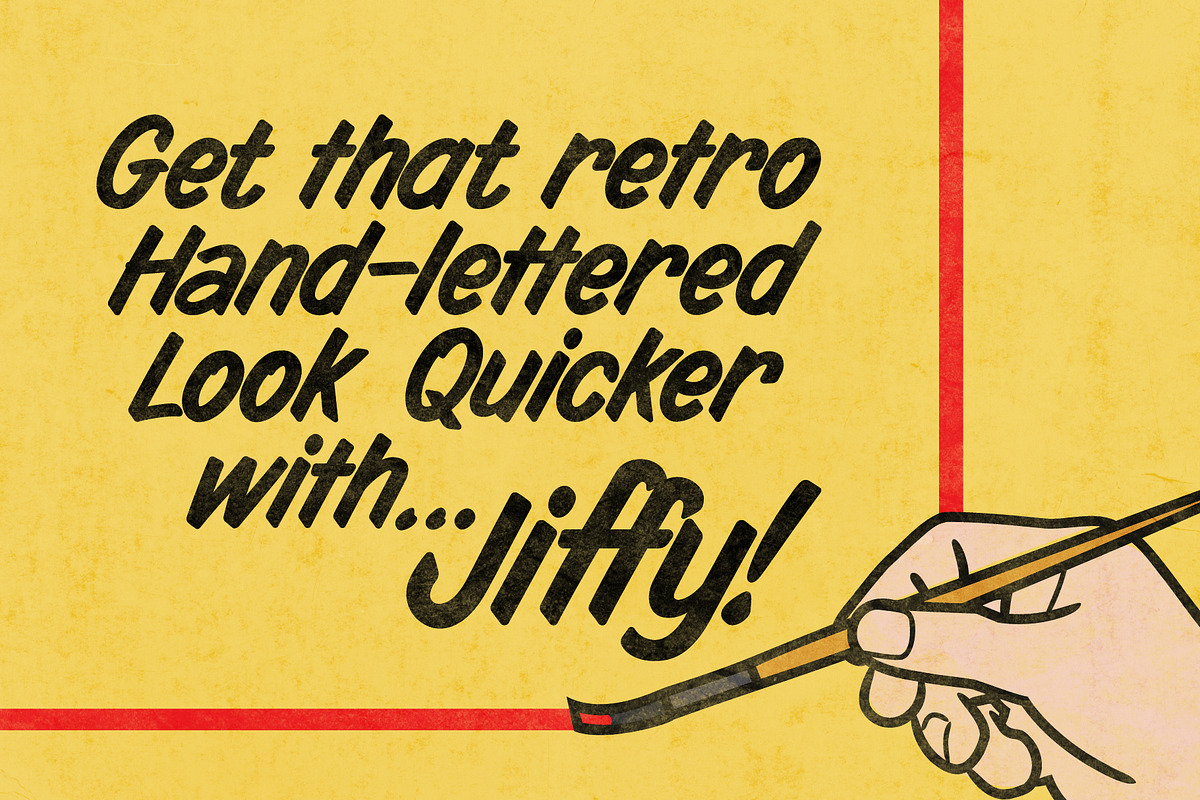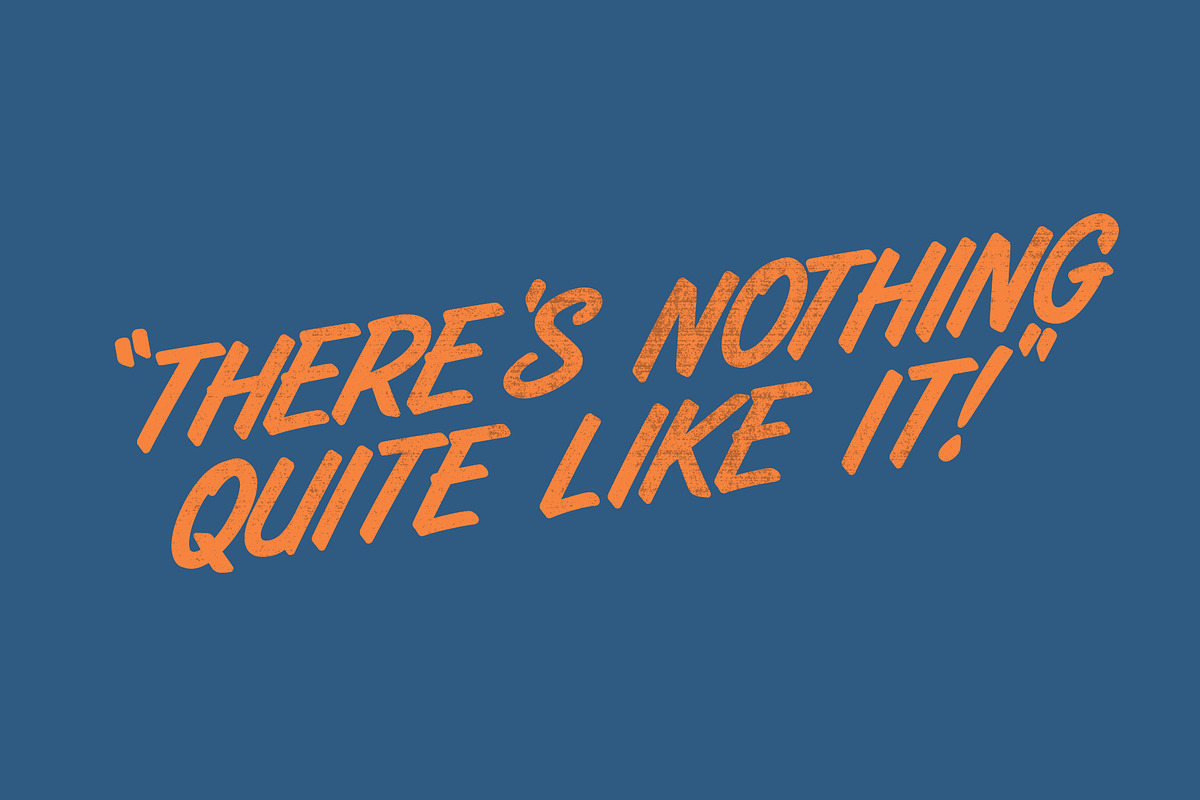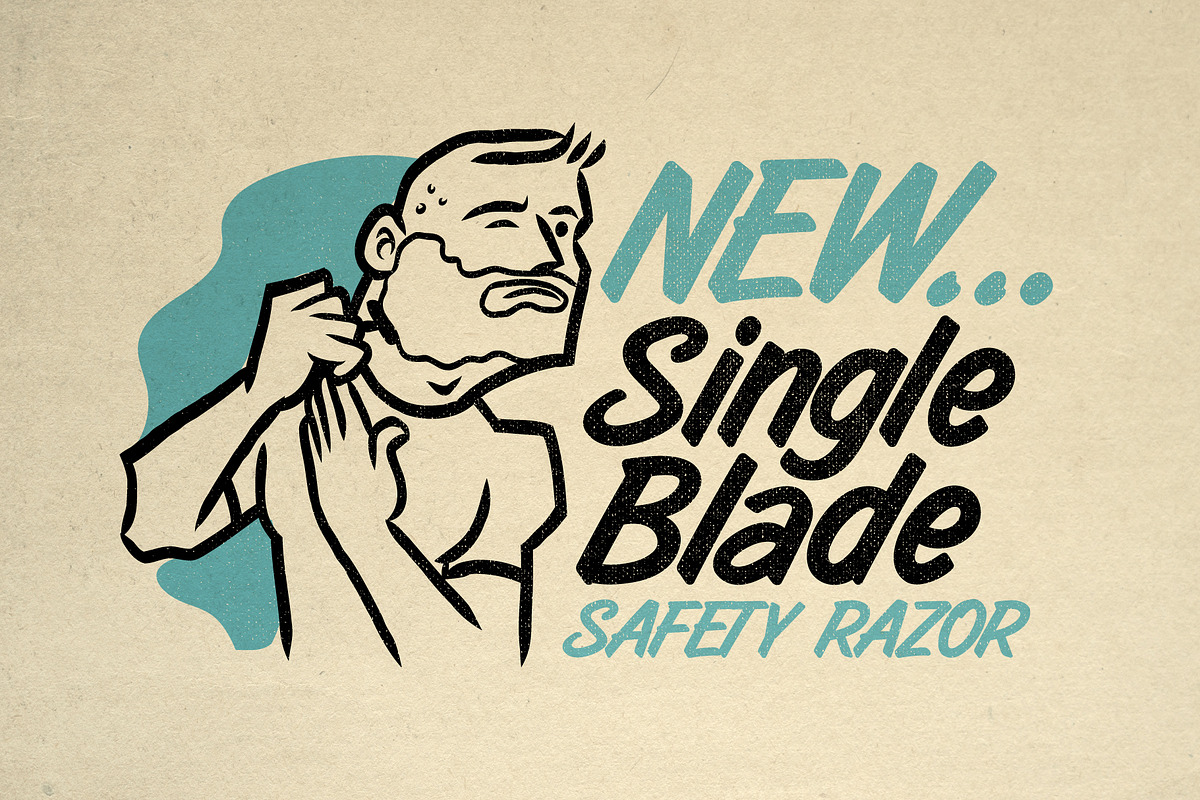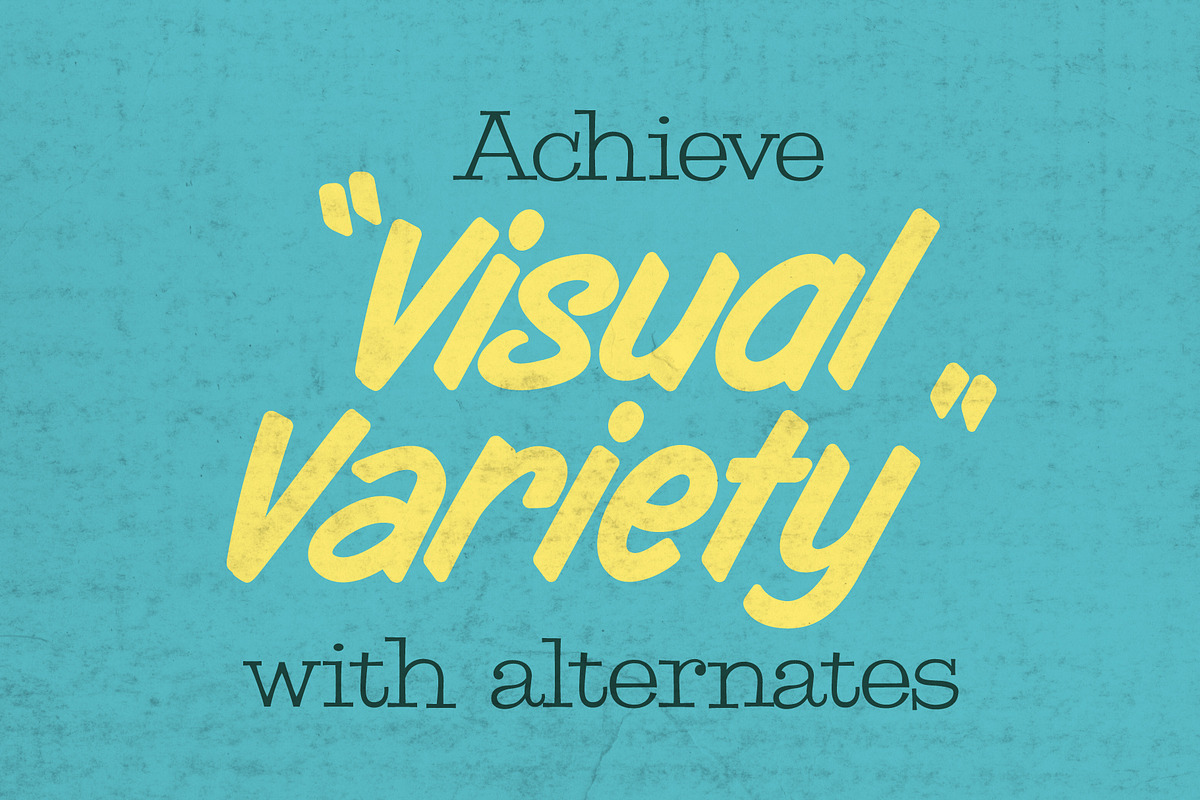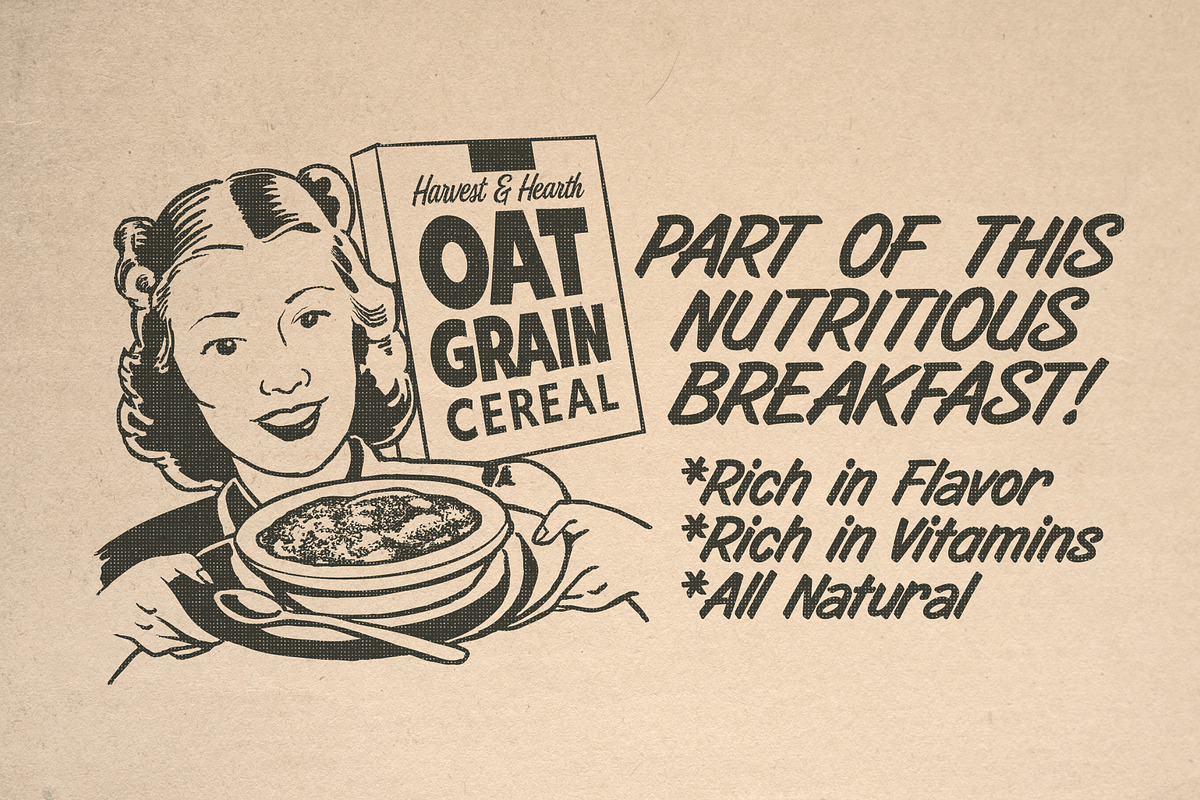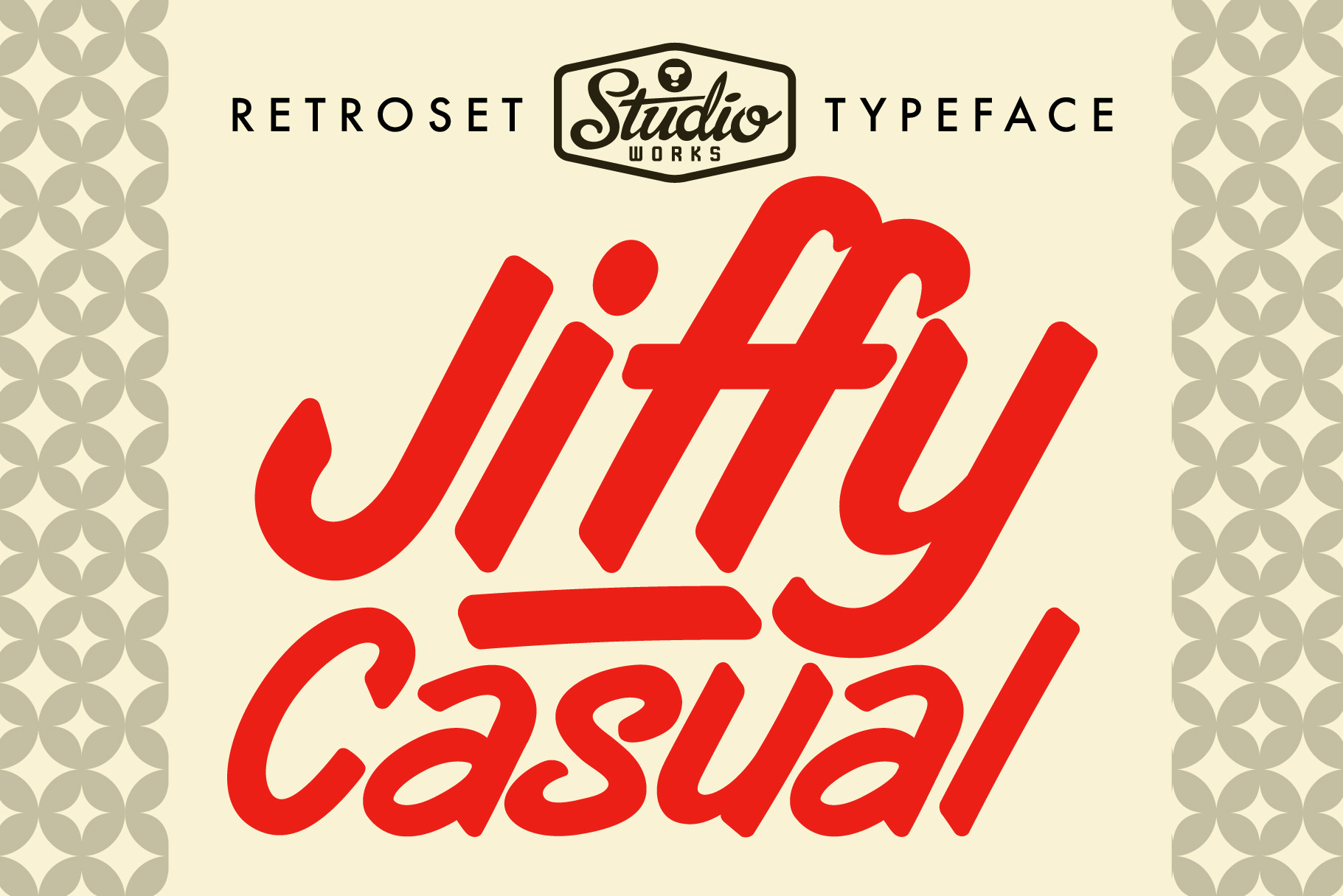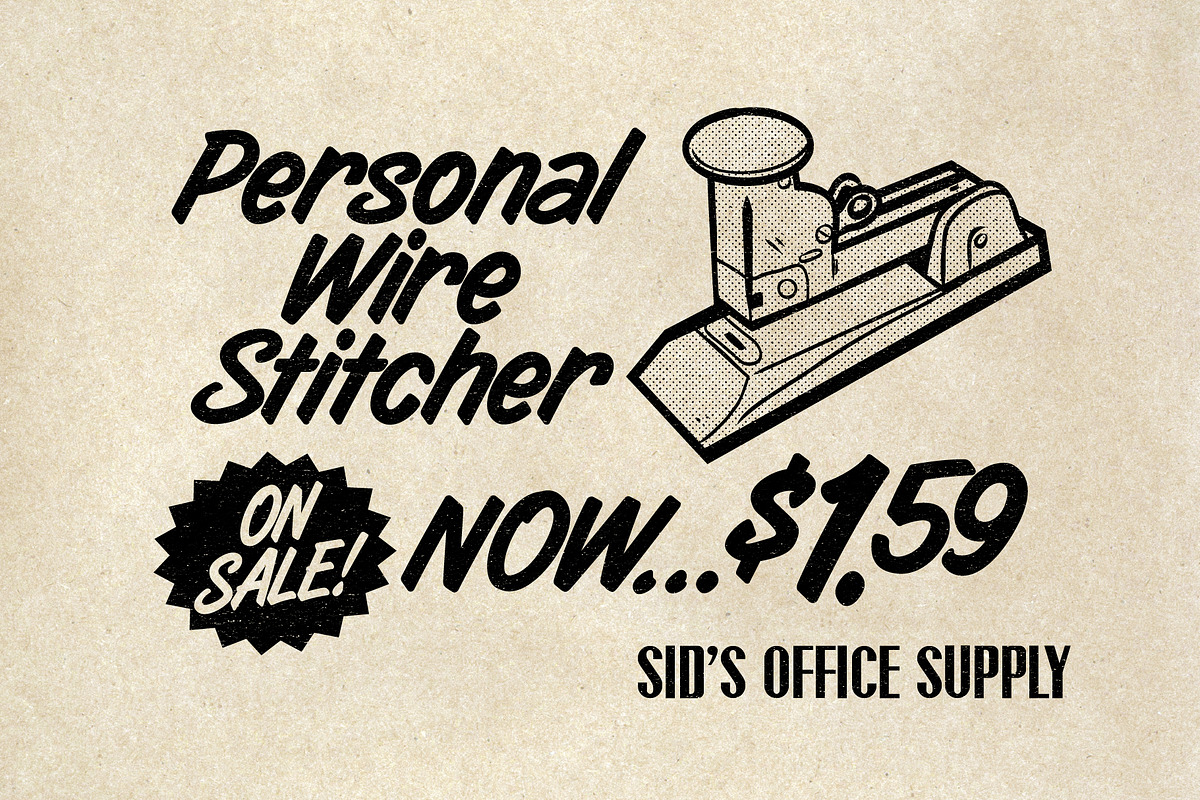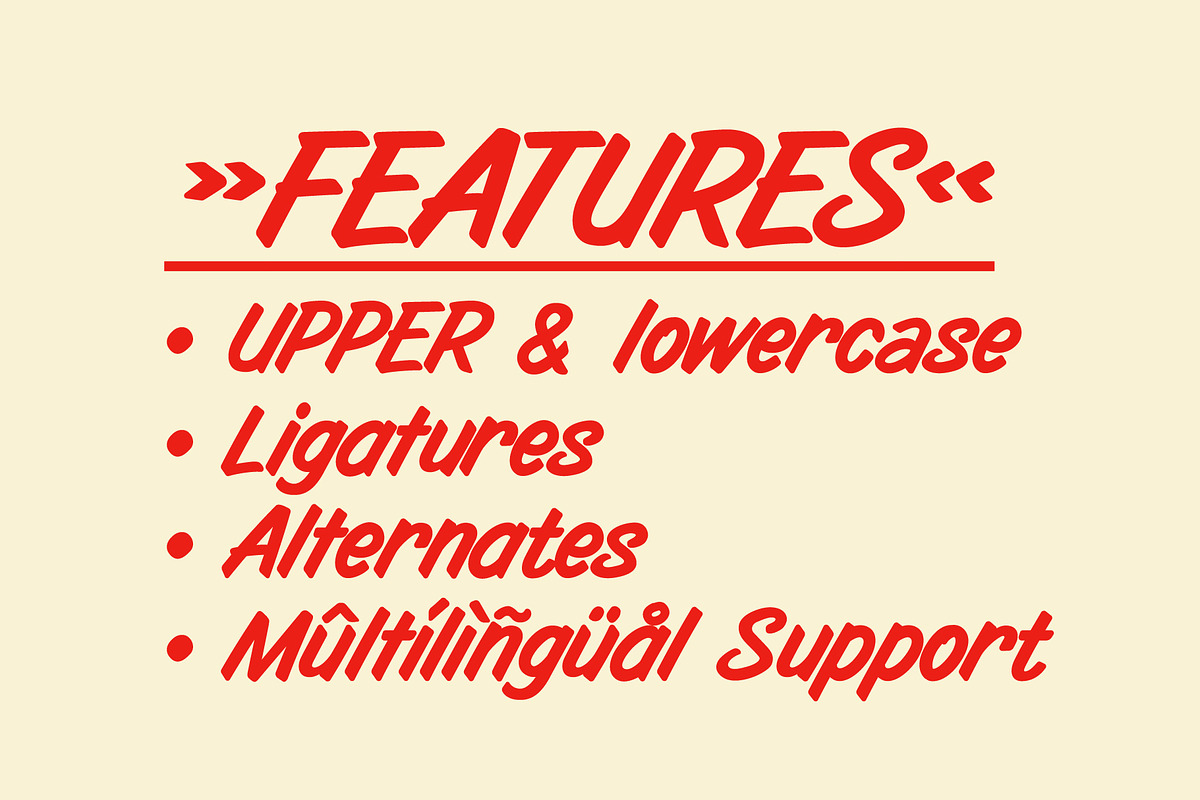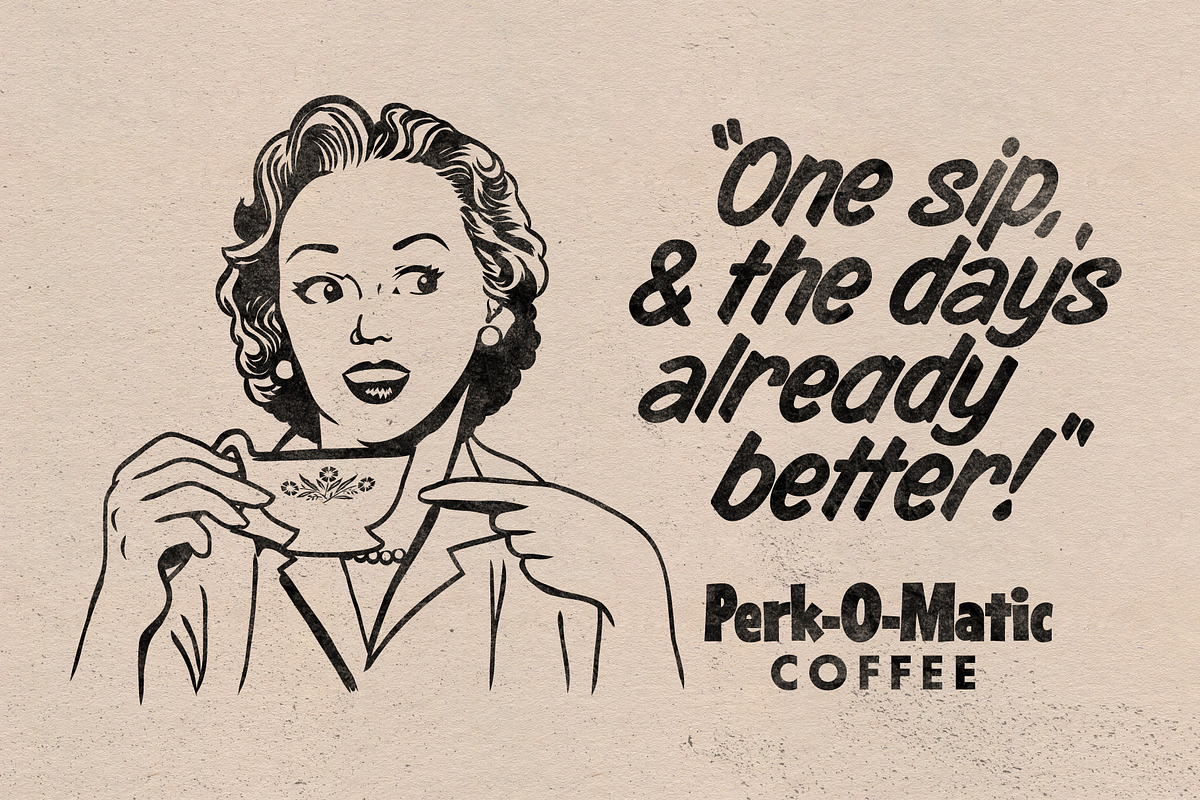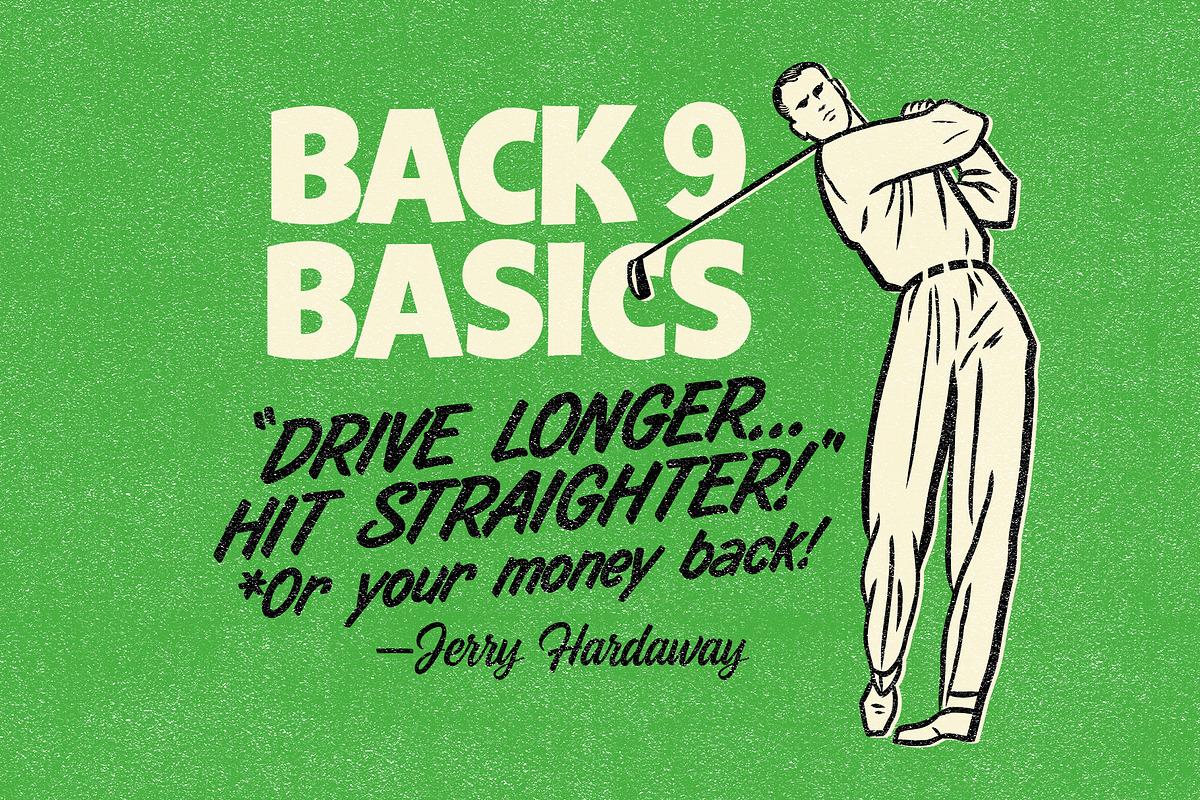
Jiffy Casual | Retroset Typeface
Fresh off the ad arts draft table at StudioWorks comes ••J I F F Y • C A S U A L !••
Born from the lively brush scripts of storefront windows, diner menus, and magazine ads of the ’50s, Jiffy Casual delivers the same energy and style of lettering artists. Much like laying down bold, angled strokes with a sable brush, this typeface captures the spirit of midcentury living: optimistic, breezy, and a touch playful.
Here's what you get with Jiffy Casual:
- Upper (A-Z) and lower case (a-z) characters
- Numbers (0-9)
- Standard punctuation and glyphs
- Ligatures and alternates
Jiffy Casual is perfect for projects that need a splash of retro spontaneity, a shot of style, and a whole lot of personality. Use for menus, ads, packaging, and anything that calls for a friendly hello. Bold enough to grab attention, warm enough to feel personal and stylish enough to keep up with today's trends. Add Jiffy Casual to your collection!